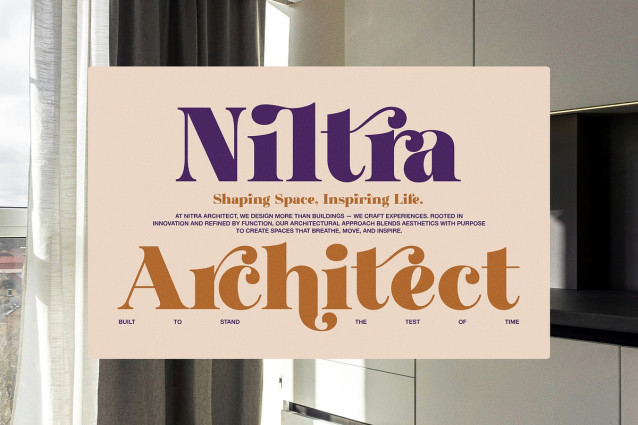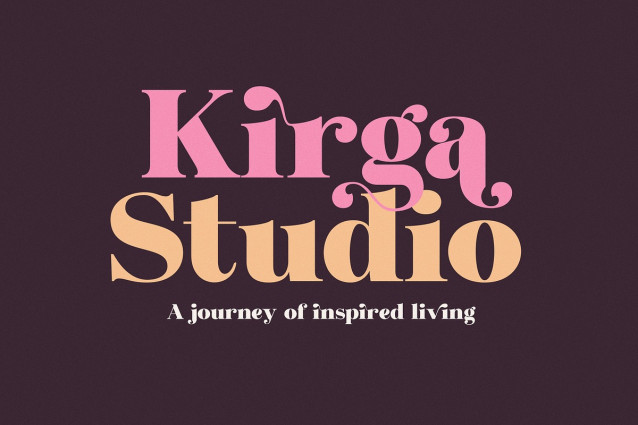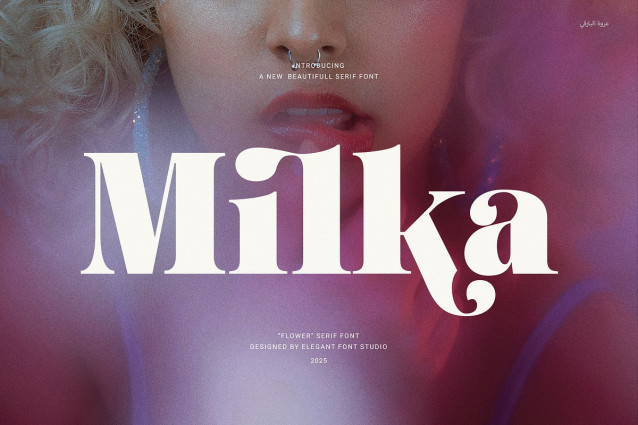
Milka Font
Milka Font – Elegant Serif Font is a beautifully designed serif typeface that combines modern style with classic elegance. Its proportional shapes and smooth ligatures make it perfect for creating polished, professional designs. Use Milka for logos, websites, magazines, product packaging, or ads—it works well across many industries.
This font stands out with clear, easy-to-read letterforms. It suits boutiques, food brands, fashion labels, and corporate projects. Plus, Milka looks great both in print and digital formats, so your work always appears sharp and attractive.